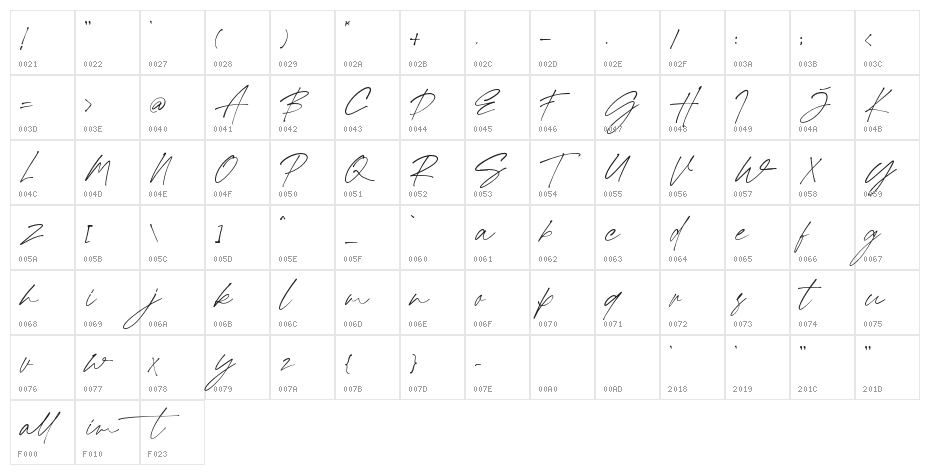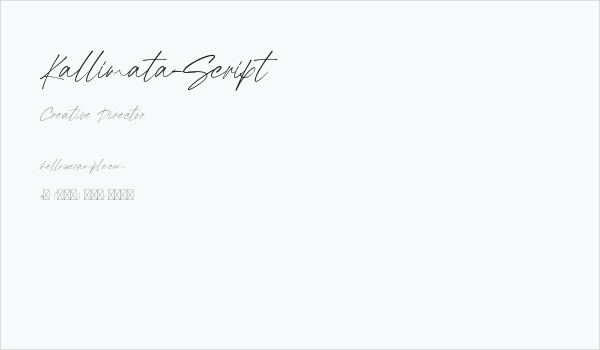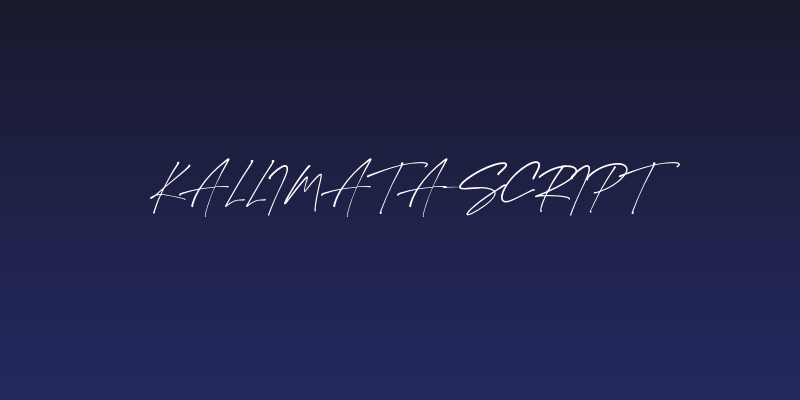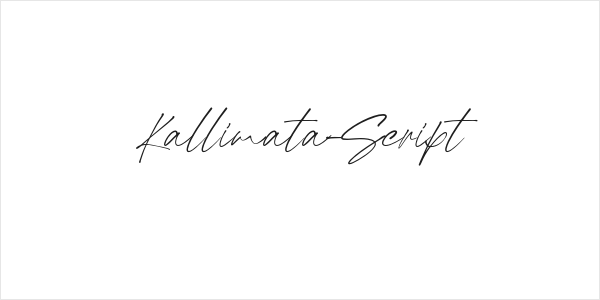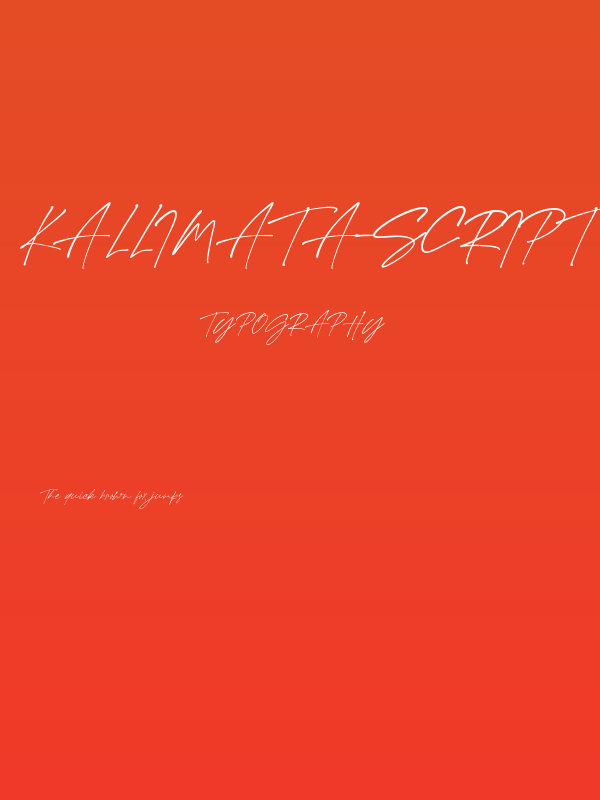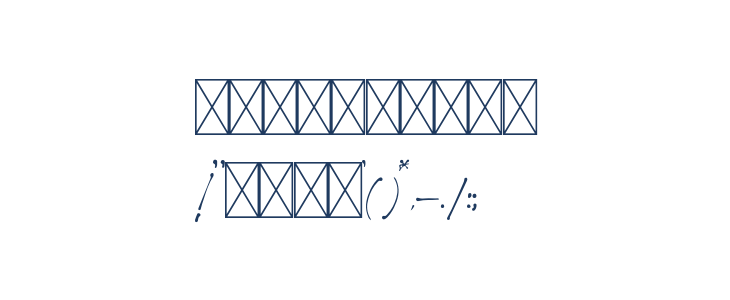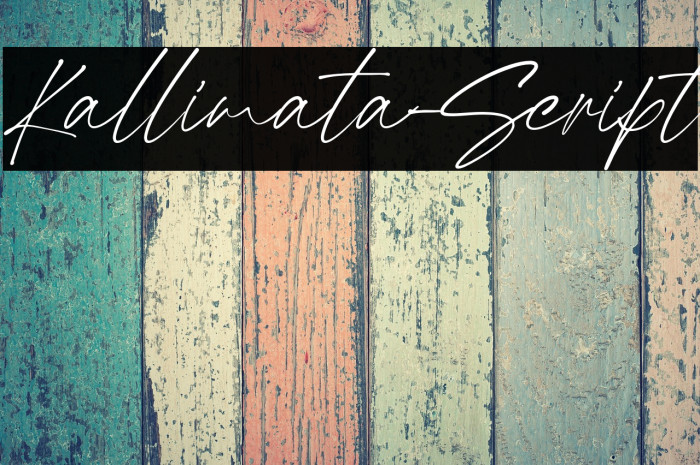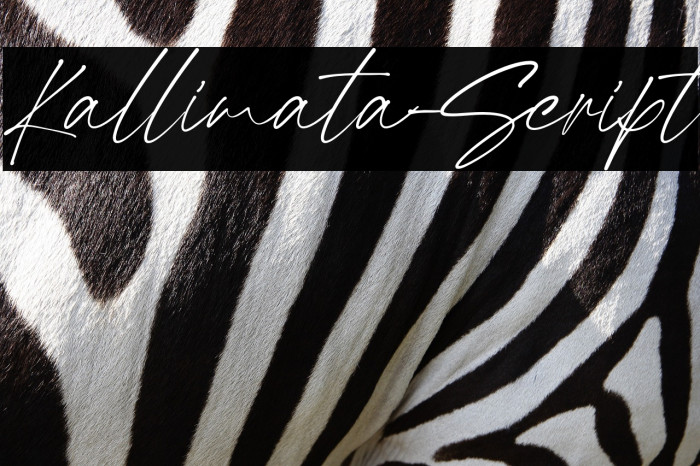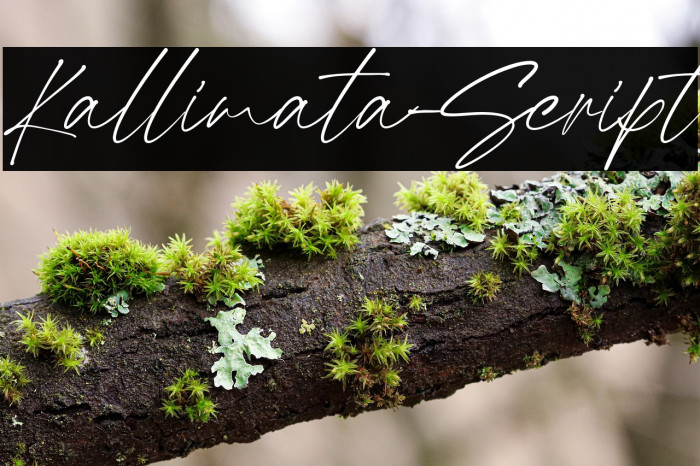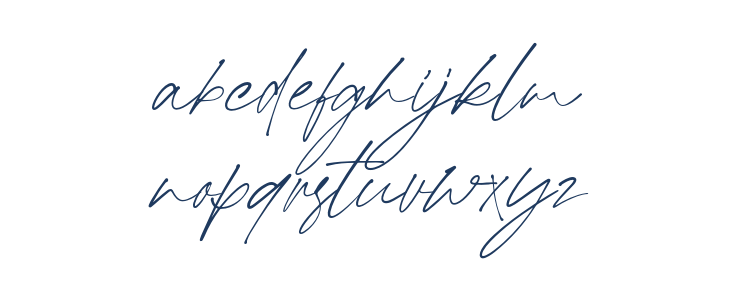
Kallimata-Script Font
Kallimata-Script Description
This font exudes a dynamic and fluid style, characterized by its cursive and handwritten appearance. Each letter flows seamlessly into the next, creating a sense of movement and elegance. The strokes are thin and delicate, with a consistent slant that adds to its graceful aesthetic. The uppercase and lowercase letters maintain a cohesive look, while the numerals and special characters complement the overall design. This script font is perfect for projects that require a personal touch or a sense of sophistication.
| Overall Style | Elegant, Handwritten |
| Proposed Projects | Ideal for wedding invitations, personal branding, greeting cards, and elegant stationery. |